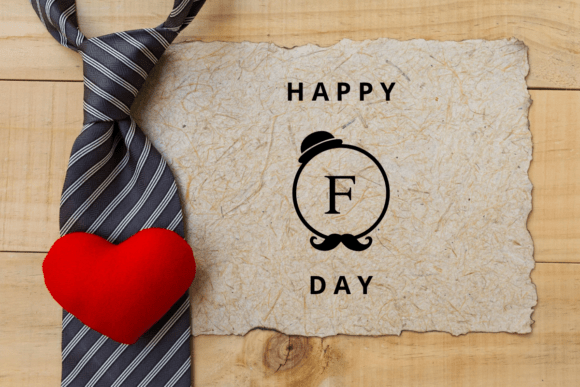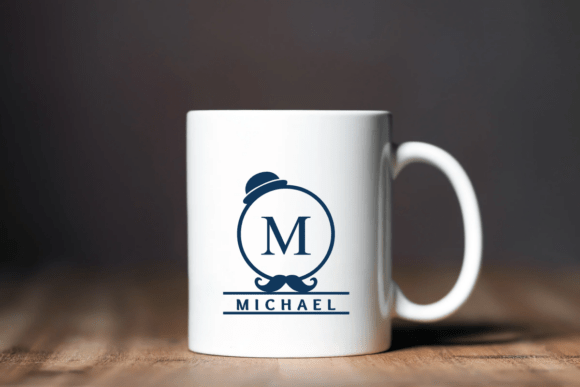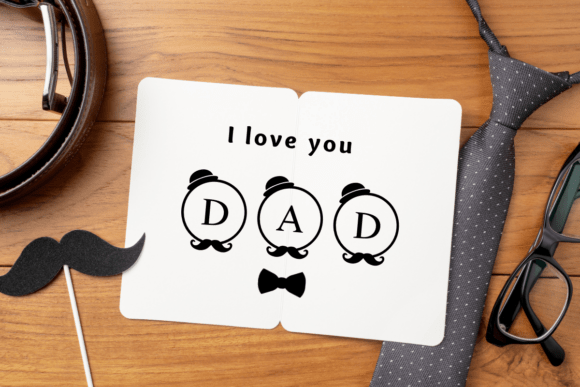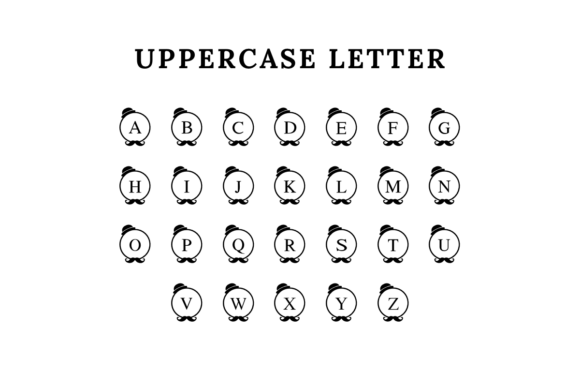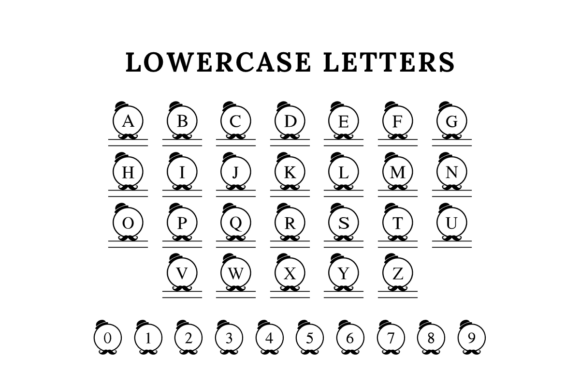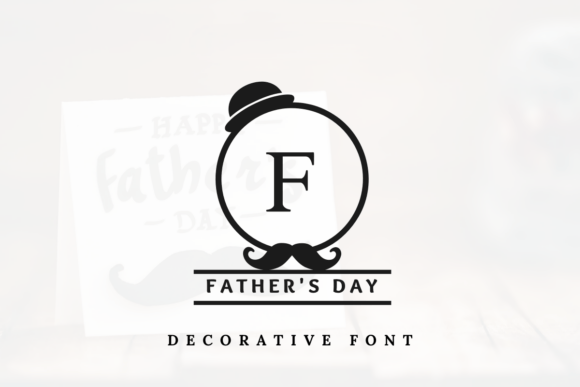
Make Father’s Day Unforgettable with the Perfect Monogram Font
Are you looking for a unique way to celebrate Father’s Day? Whether you’re a designer, crafter, or simply someone who wants to make the special day unforgettable for your dad, a custom monogram font can add a personal touch to your gift or greeting. In this article, we’ll explore the Father’s Day Monogram Font and how it can elevate your designs to make dad feel extra special.
Introducing the Father’s Day Decorative Font
The Father’s Day Decorative Font is a charming, masculine-themed display typeface designed specifically for Father’s Day celebrations. This delightful font combines classic serif lettering with whimsical icons like hats, mustaches, and bow ties, giving it a playful yet sophisticated feel. With this font, you can create stunning designs that are sure to make your dad feel loved and appreciated.
The Father’s Day Monogram Font is incredibly versatile and can be used for a wide range of design projects. Here are some ideas to get you started:
- Greeting Cards: Create personalized greeting cards with a special message for your dad. The font’s classic serif lettering and whimsical icons will add a touch of elegance and playfulness to your design.
- Posters: Design eye-catching posters to celebrate Father’s Day. You can use the font to highlight special messages, quotes, or even a photo of you and your dad.
- T-Shirt Designs: Create custom t-shirt designs for your dad or as a gift for fellow dads. The font’s bold and playful style will look great on a variety of apparel.
- Personalized Gifts: Add a personal touch to your gifts, such as mugs, tote bags, or picture frames, with a custom monogram or message using the Father’s Day Monogram Font.
Key Features of the Father’s Day Monogram Font
The Father’s Day Decorative Font comes with several key features that make it perfect for your design projects:
- Classic Serif Lettering: The font features classic serif lettering that exudes elegance and sophistication.
- Whimsical Icons: The font includes a range of whimsical icons like hats, mustaches, and bow ties that add a playful touch to your designs.
- Bold and Heartfelt: The font’s bold style ensures that your message will stand out, while its heartfelt feel will make your design more meaningful.
- Memorable: The font’s unique combination of classic serif lettering and whimsical icons makes it highly memorable, ensuring that your design will stay with your dad for years to come.
Tips for Using the Father’s Day Monogram Font
Here are some tips to help you get the most out of the Father’s Day Monogram Font:
- Experiment with Colors: Try pairing the font with different colors to create a unique and eye-catching design.
- Mix and Match Icons: Combine the font’s whimsical icons to create a custom design that reflects your dad’s personality.
- Keep it Simple: Don’t be afraid to keep your design simple and elegant. The font’s bold style will ensure that your message stands out.
The Father’s Day Monogram Font is a charming and versatile font that can elevate your designs and make Father’s Day unforgettable for your dad. With its classic serif lettering, whimsical icons, and bold style, this font is perfect for a wide range of design projects. Whether you’re a designer, crafter, or simply someone who wants to make the special day extra special, this font is sure to inspire you to create something amazing.